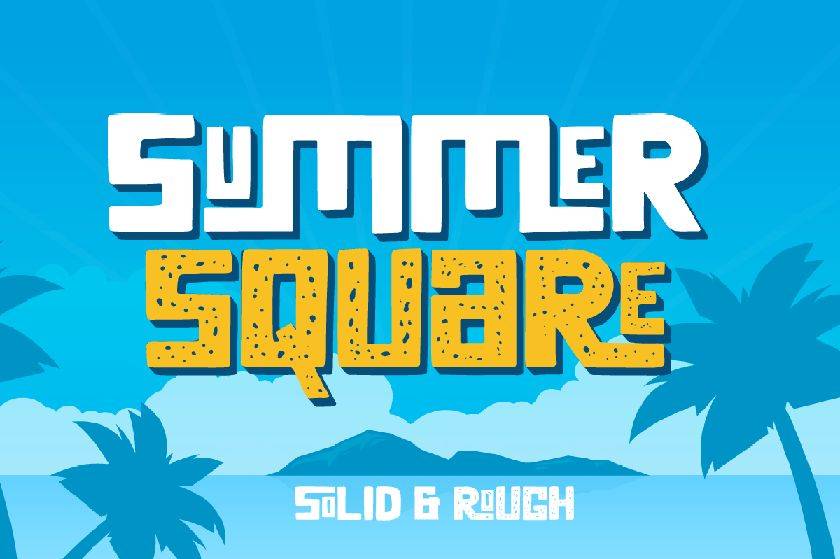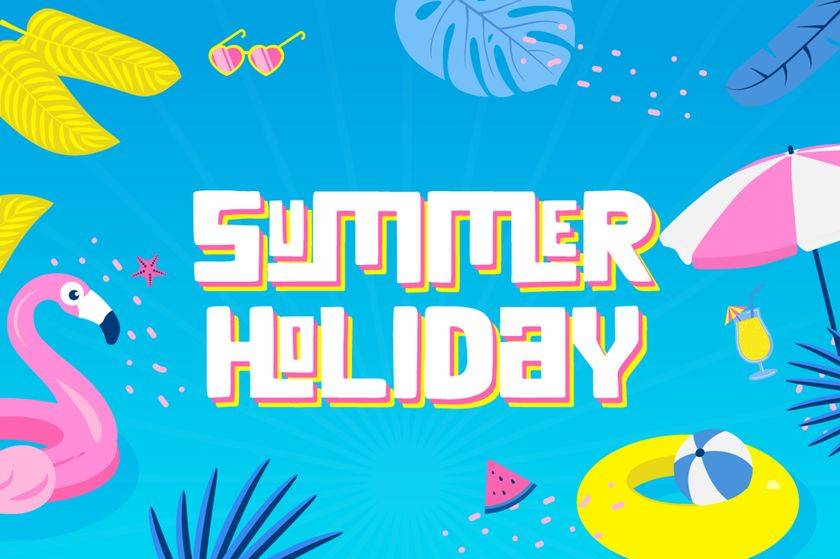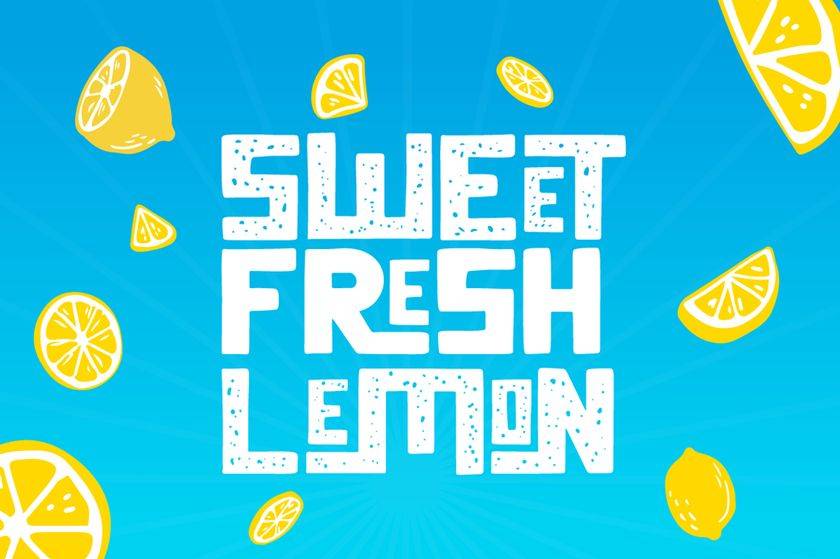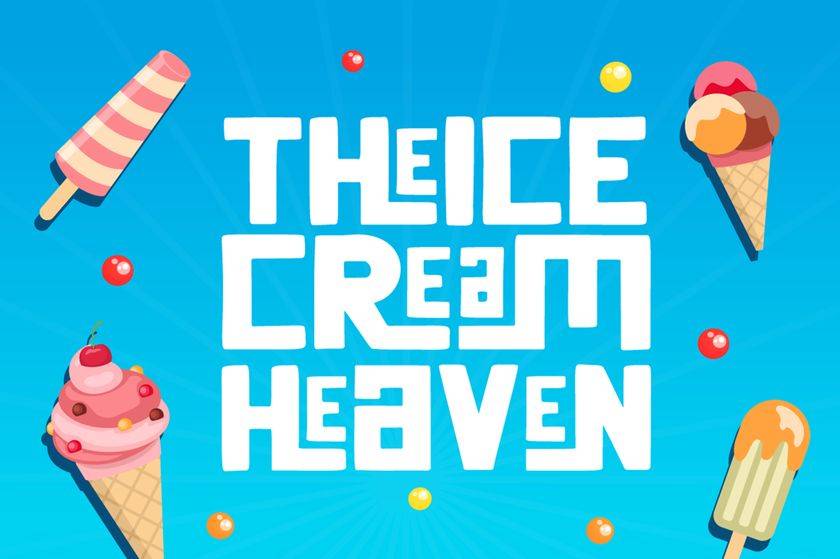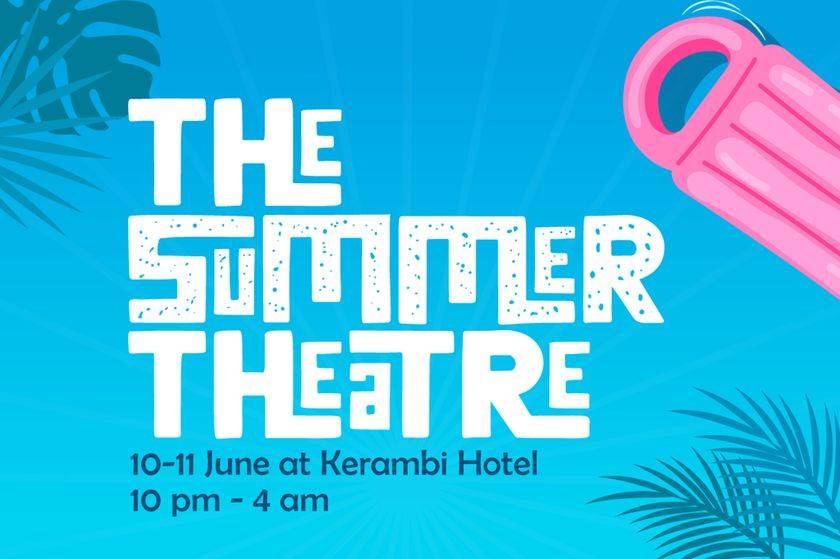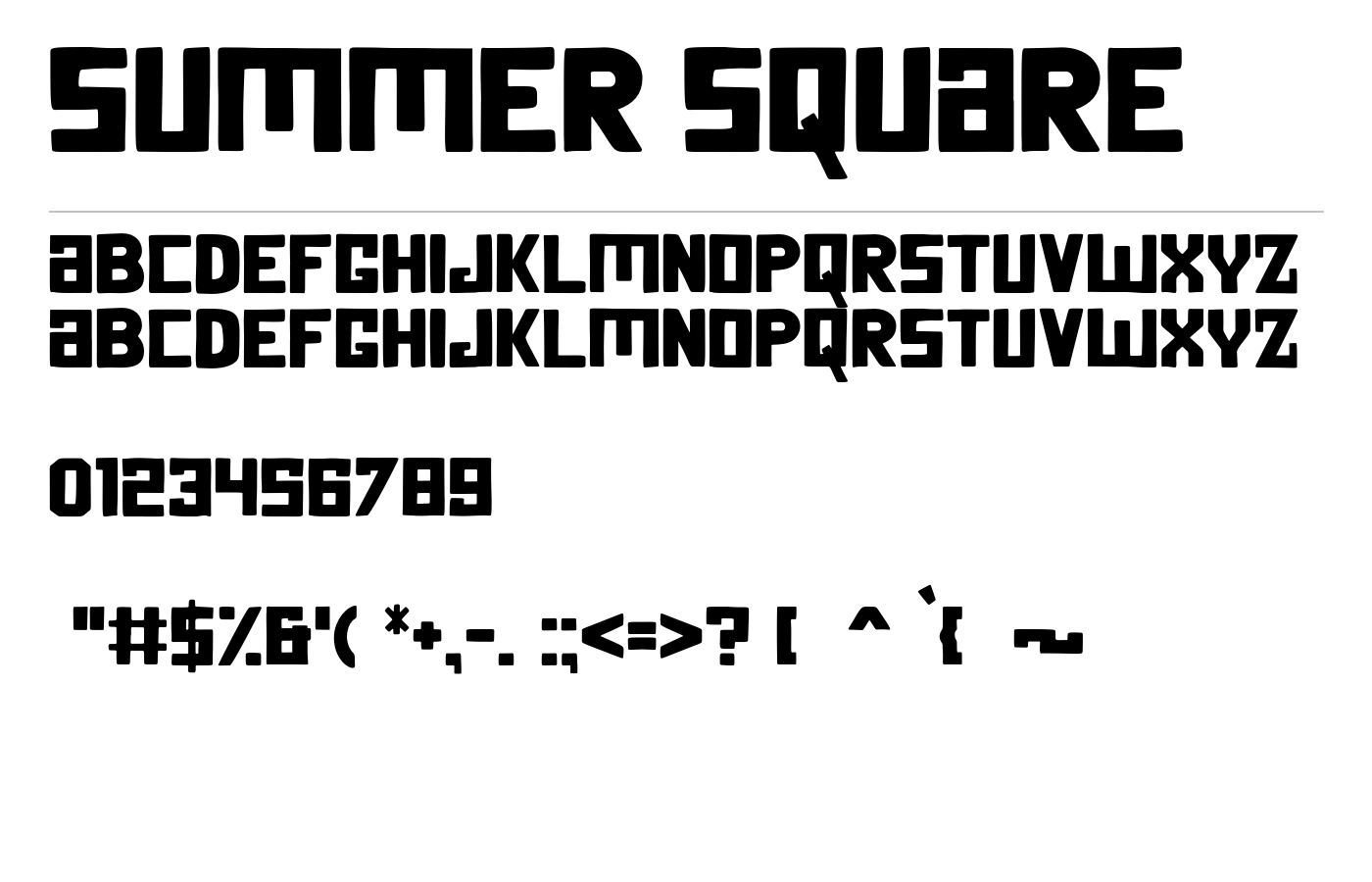
Summer Square is a bold, square-shaped sans serif font with a quirky, hand-crafted feel, featuring strong geometric forms and slightly irregular edges that add character and charm. Its thick weight and condensed width make it ideal for attention-grabbing headlines, logos, and playful branding that wants to convey a modern yet approachable vibe. This font works best in creative, casual contexts where personality and impact are key.
Summer Square Font
About Summer Square Font
| Font family | Summer Square Font |
| Designer | Fadli Ramadhan Iskandar |